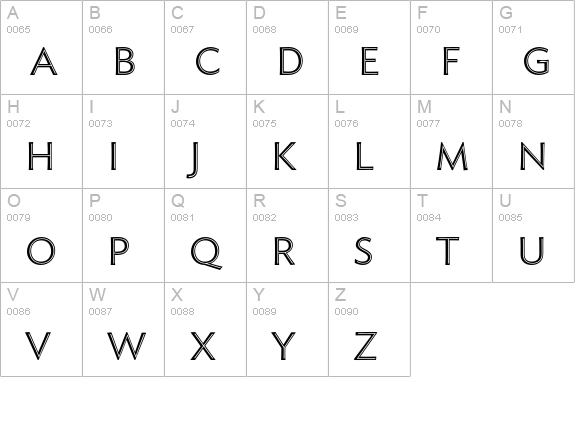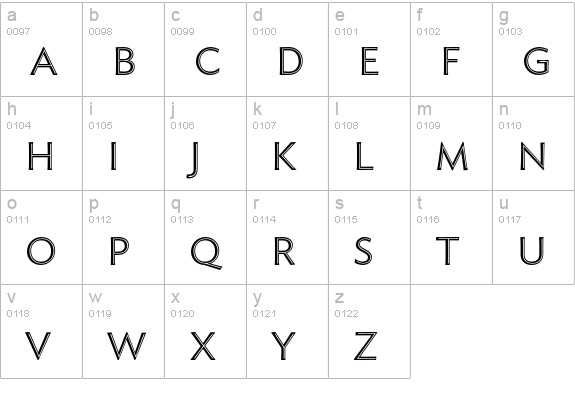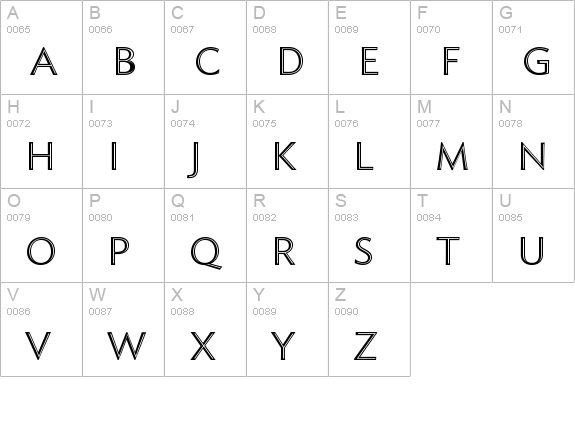
Topaz Shaded Font Details
Topaz Shaded font is a stunning display typeface that exudes elegance and sophistication. Its unique shading adds depth and dimension to each character, making it perfect for headlines, titles, and branding projects. The delicate curves and intricate details of Topaz Shaded font create a sense of luxury and refinement. Best of all, Topaz Shaded font is available for free download at FontsMarket.com. This means you can easily access this beautiful typeface and use it in your designs without any cost. Don't miss out on the opportunity to enhance your projects with the timeless beauty of Topaz Shaded font. Download it now and elevate your designs to the next level!